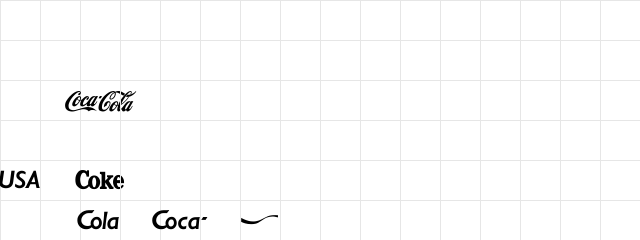
CocaCola Regular
Design Context for CocaCola
CocaCola is a composed and adaptable typeface that performs quietly and consistently across a wide range of design contexts.